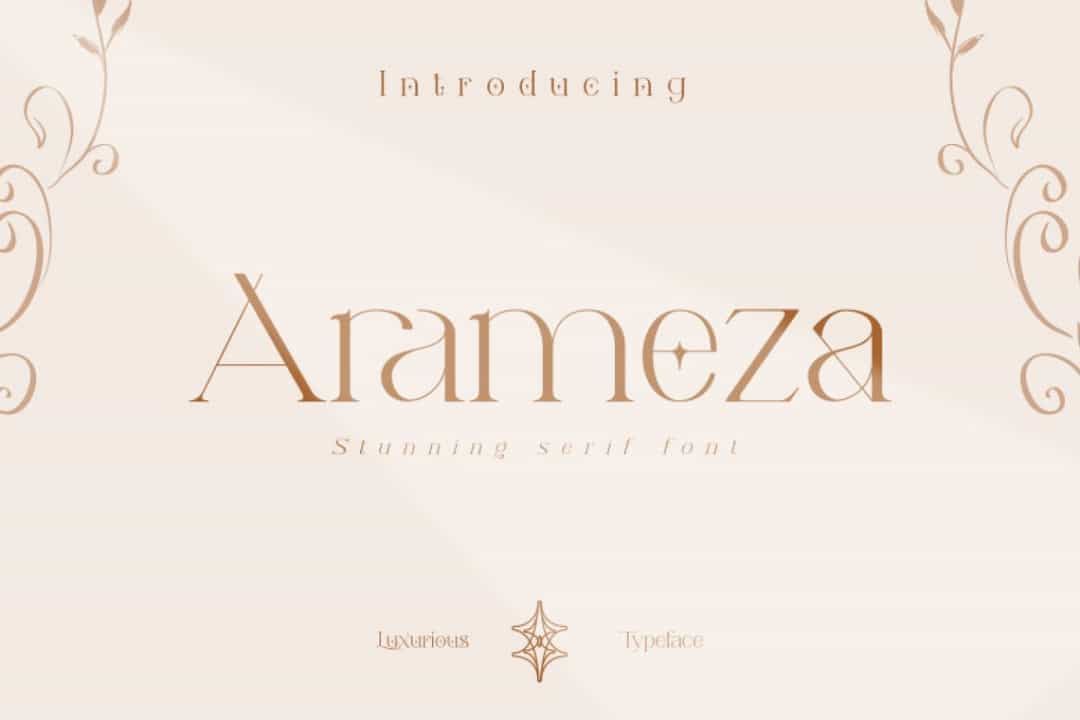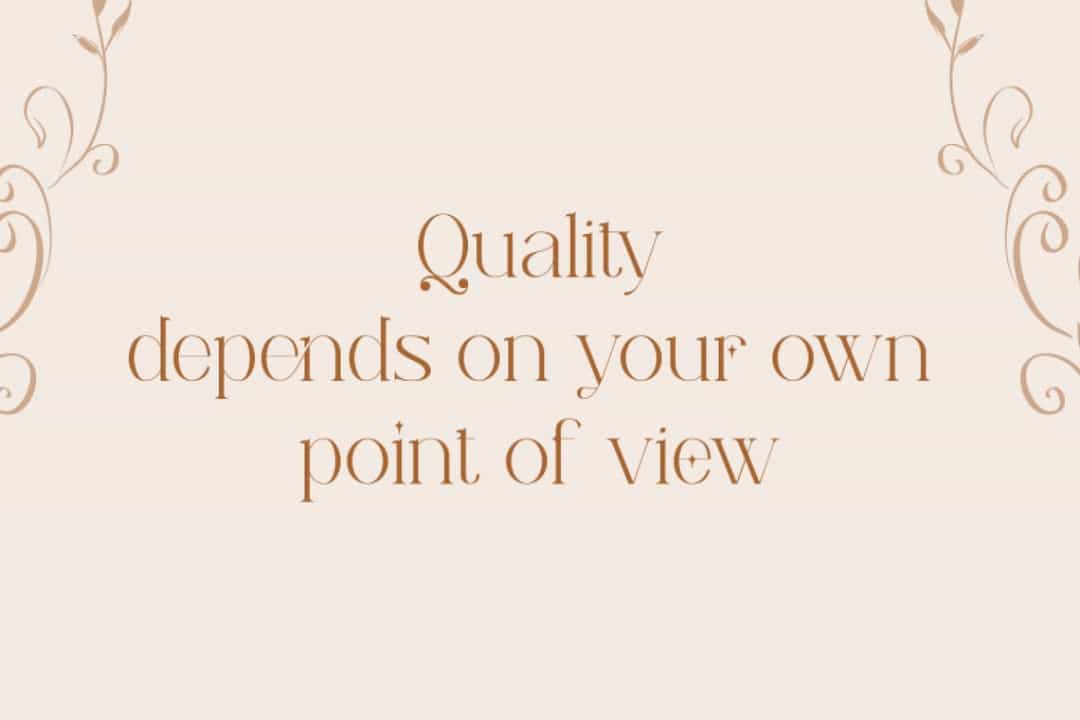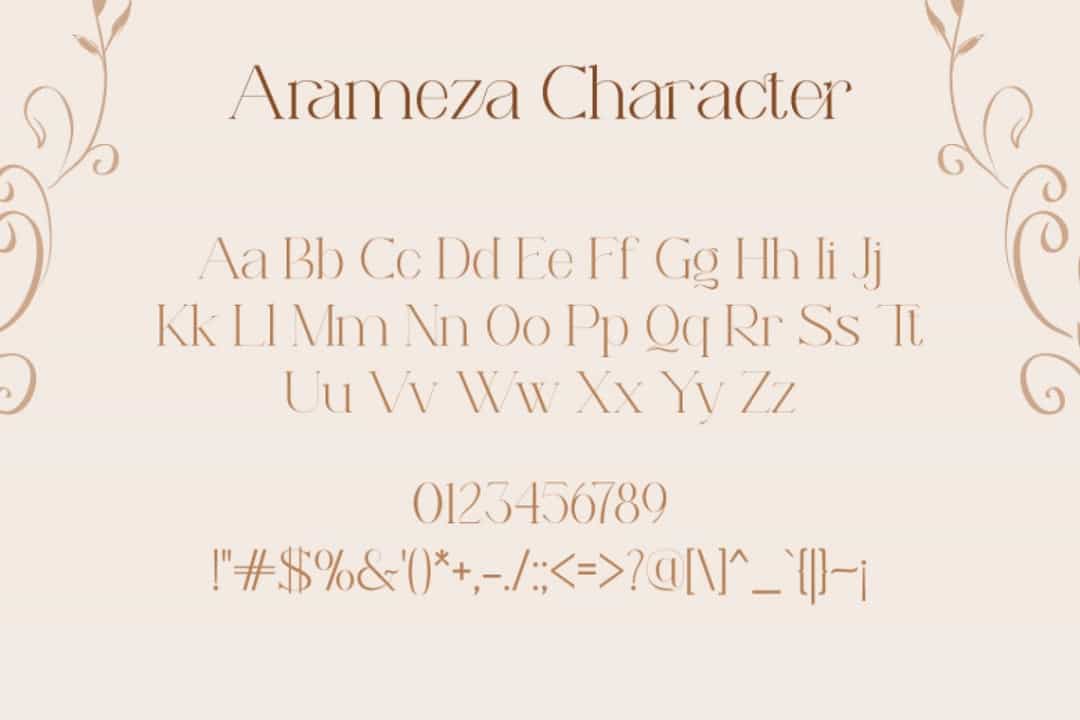
Arameza is an elegant serif font designed with slim serifs that is both delicate and refined, making it perfect for formal and informal settings alike. PUA encoded versions allow easy access to all its glyphs, swashes and symbols!